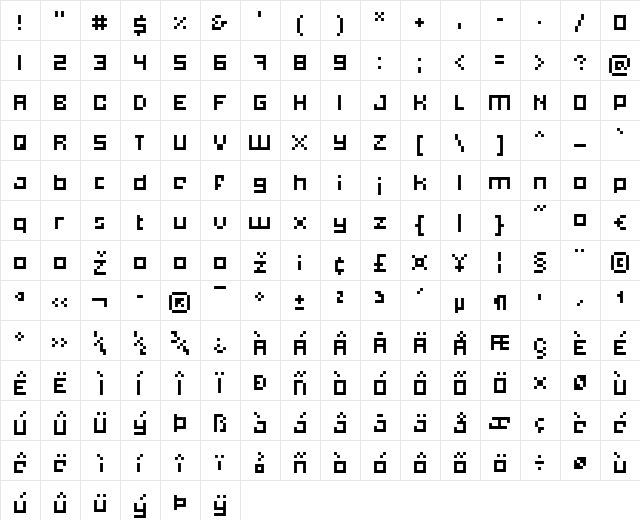
PF Neutron Regular
Design Context for PF Neutron Typeface
PF Neutron is a composed and adaptable typeface that performs quietly and consistently across a wide range of design contexts.
Pro Tip: Pair PF Neutron with a font of contrasting weight or personality to build a more expressive typographic hierarchy.